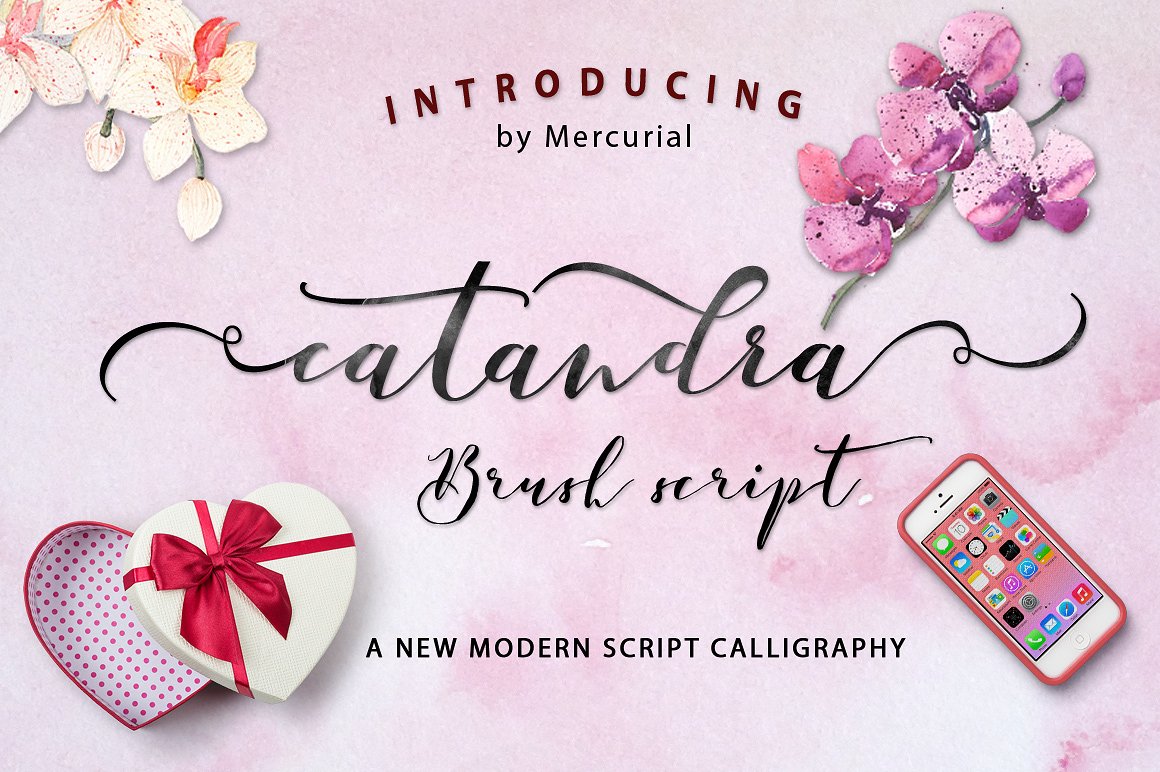
Catandra Script
Catandra Script Font
Introducing by Mercurial Catandra Script, a new fresh & modern script with a handmade calligraphy style. a charming typeface that is attractive and So beautiful on invitation like greeting cards, branding materials, business cards, quotes, posters, and more!
Catandra Script also has a swash letters from a – z that would make it a more attractive font. This font can be used in various applications such as Microsoft Word, corel draw, adobe illustrator, adobe photoshop. in addition to having standard letters, numbers and some standard symbols.